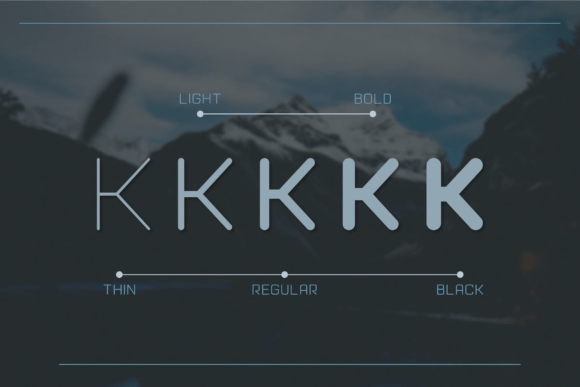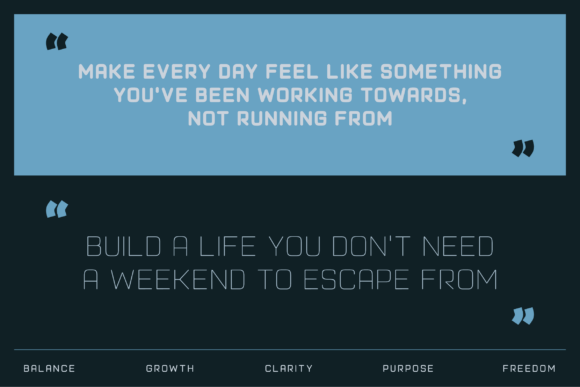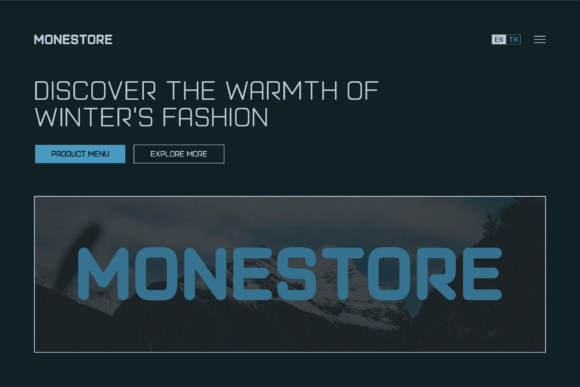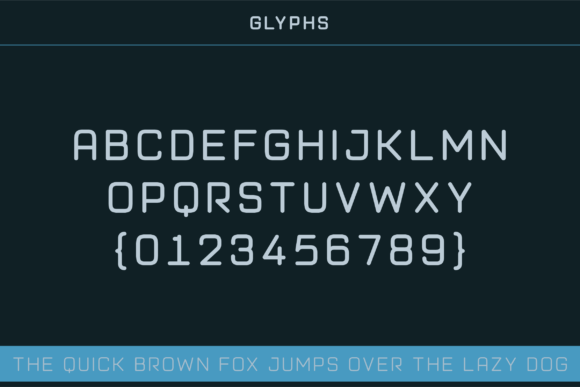
Introducing Charmonk Rounded: The Ultimate Modern All-Caps Sans Serif Font
In the world of typography, a good font can make all the difference in bringing your creative projects to life. If you’re a designer, crafter, or brand creator looking for a clean yet friendly visual identity, look no further than Charmonk Rounded. This modern all-caps sans serif font family is designed to bring clarity, warmth, and bold personality to your designs, making it the perfect addition to your typography arsenal.
What is Charmonk Rounded?
Charmonk Rounded is a thoughtfully crafted font family that boasts soft-rounded edges and a sleek, geometric construction. This unique combination gives the font a warm and approachable feel, while maintaining a high level of legibility and aesthetic balance. With five versatile weights to choose from – Thin, Light, Regular, Bold, and Black – Charmonk Rounded adapts beautifully to a wide range of design applications.
Key Features of Charmonk Rounded
- Modern All-Caps Design: Charmonk Rounded is an all-caps font, perfect for creating bold and eye-catching headlines, titles, and logos.
- Soft-Rounded Edges: The font’s soft-rounded edges give it a friendly and approachable feel, making it ideal for designs that require a touch of warmth and personality.
- Sleek Geometric Construction: Charmonk Rounded’s geometric construction ensures a high level of legibility and aesthetic balance, making it perfect for body text and captions.
- Five Versatile Weights: With five weights to choose from, Charmonk Rounded can be used for a wide range of design applications, from delicate and subtle to bold and impactful.
Use Cases for Charmonk Rounded
Charmonk Rounded is a versatile font family that can be used in a variety of design applications, including:
- Logo Design: Charmonk Rounded’s bold and confident personality makes it perfect for creating memorable and impactful logos.
- Packaging Design: The font’s clean and friendly aesthetic makes it ideal for packaging design, where clarity and legibility are essential.
- Social Media Visuals: Charmonk Rounded’s adaptability and range of weights make it perfect for creating engaging and effective social media visuals.
- Headlines and Titles: The font’s bold and eye-catching design makes it perfect for creating high-impact headlines and titles.
Why Choose Charmonk Rounded?
With so many fonts to choose from, why should you choose Charmonk Rounded? Here are just a few reasons:
- Unique and Memorable: Charmonk Rounded’s soft-rounded edges and sleek geometric construction make it a unique and memorable font that will help your designs stand out.
- Highly Legible: The font’s clean and simple design ensures a high level of legibility, making it perfect for body text and captions.
- Versatile and Adaptable: With five weights to choose from, Charmonk Rounded can be used for a wide range of design applications, from delicate and subtle to bold and impactful.
Charmonk Rounded is a modern all-caps sans serif font family that is sure to bring clarity, warmth, and bold personality to your creative projects. With its soft-rounded edges, sleek geometric construction, and five versatile weights, this font is perfect for designers, crafters, and brand creators looking for a clean yet friendly visual identity. Whether you’re building a logo, packaging design, social media visuals, or high-impact headlines, Charmonk Rounded is the perfect choice.